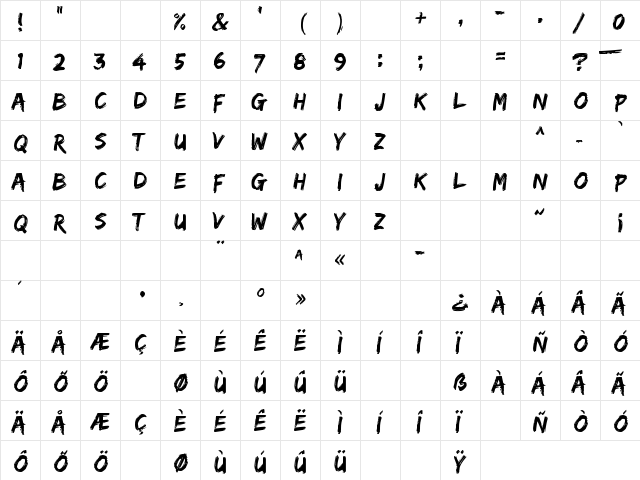
Edo SZ Regular
Design Context for Edo SZ Typeface
Edo SZ is a composed and adaptable typeface that performs quietly and consistently across a wide range of design contexts.